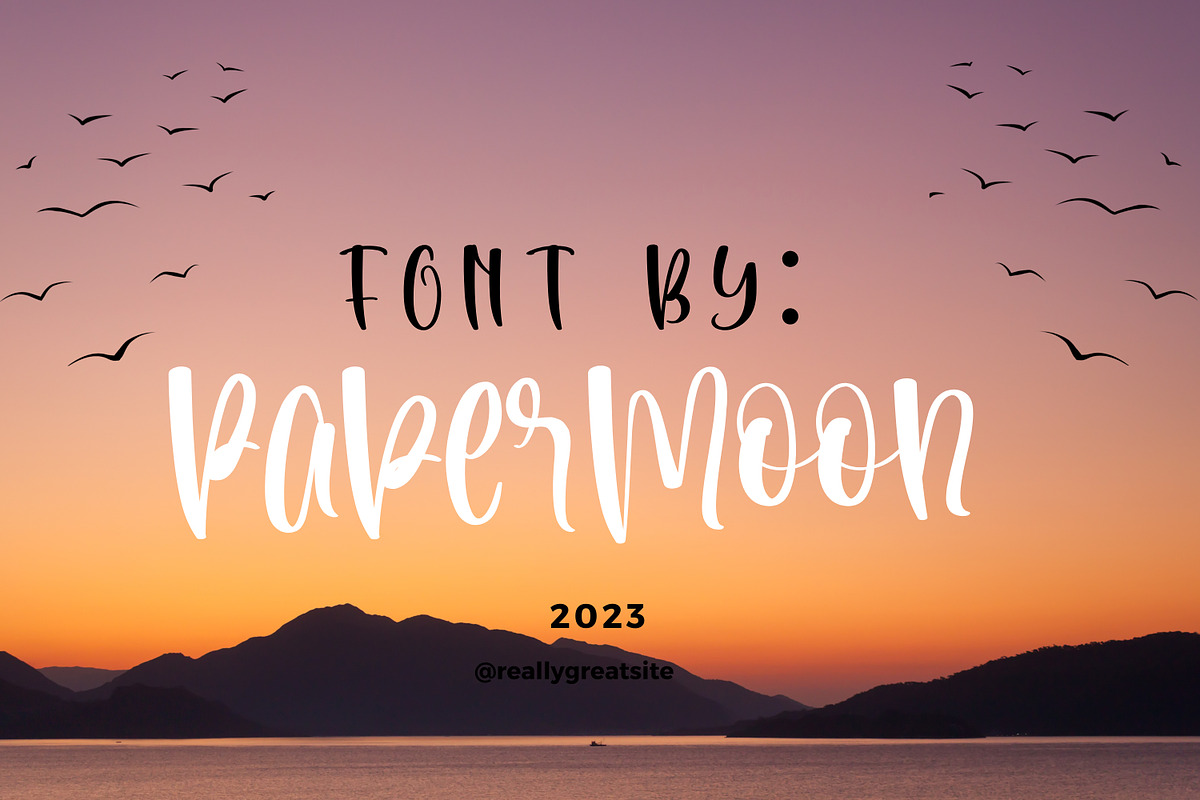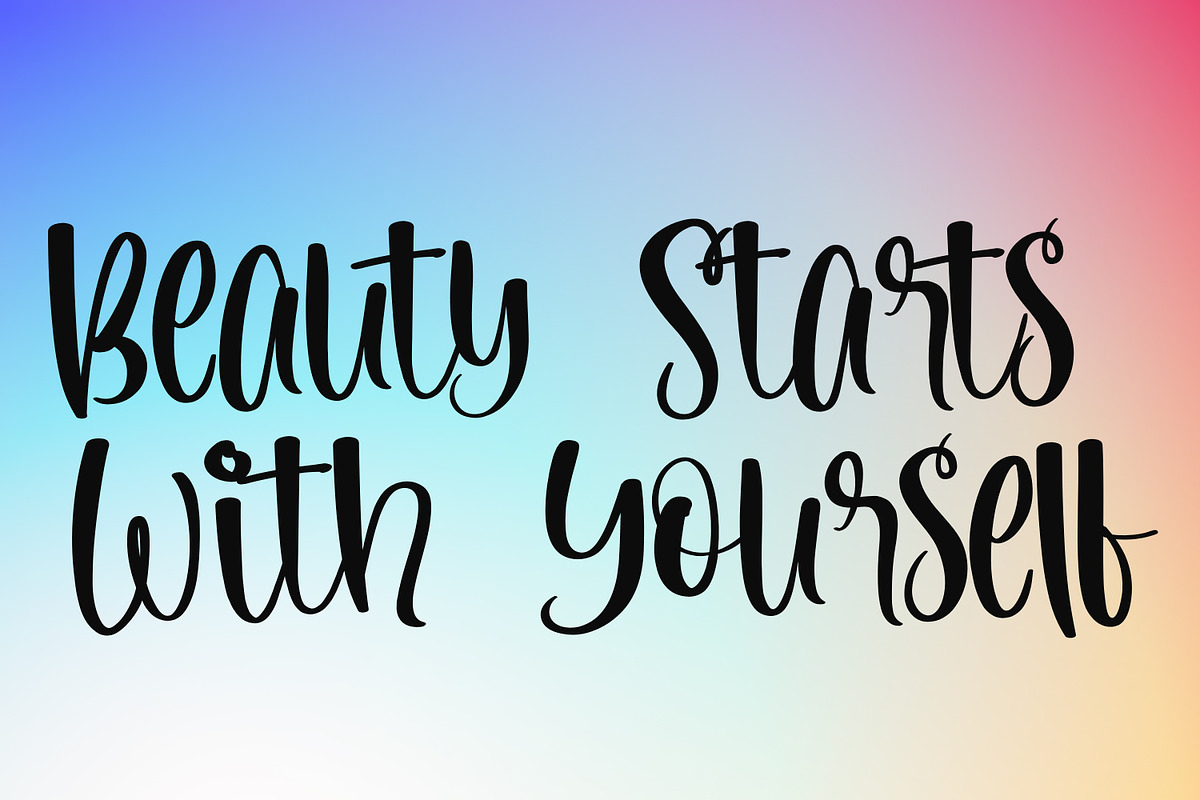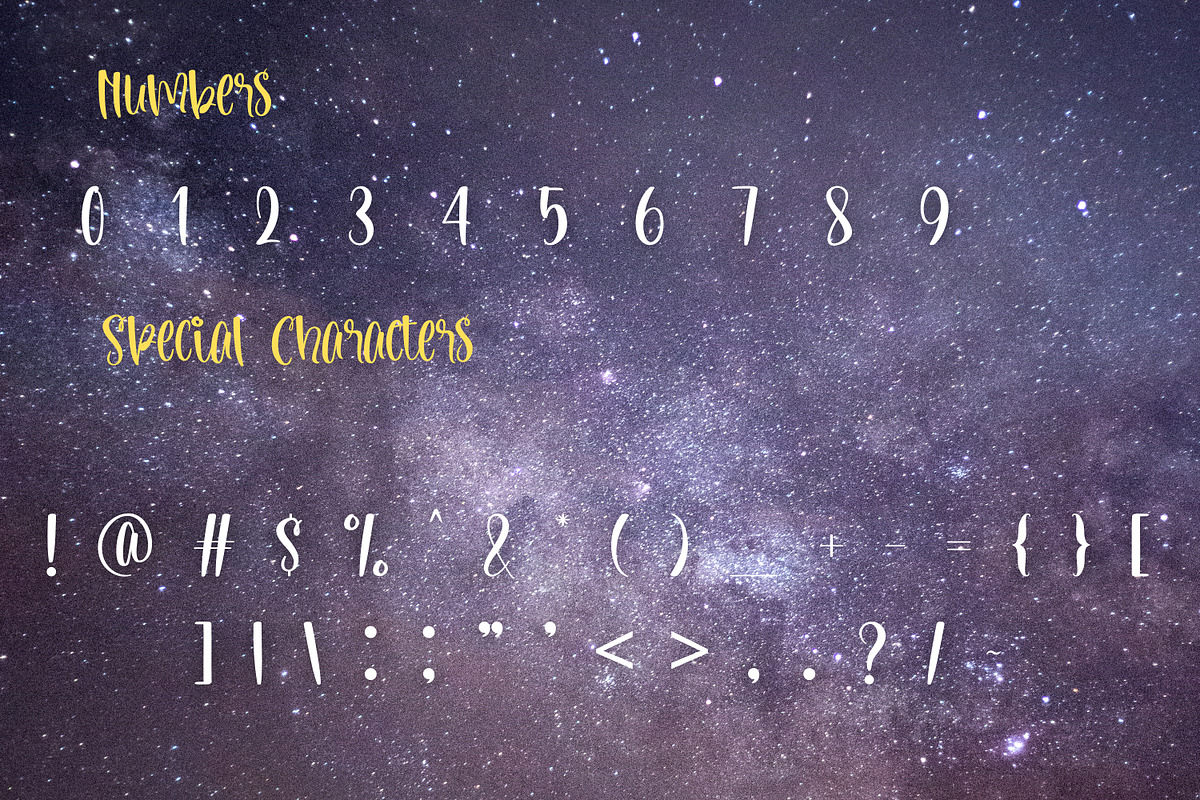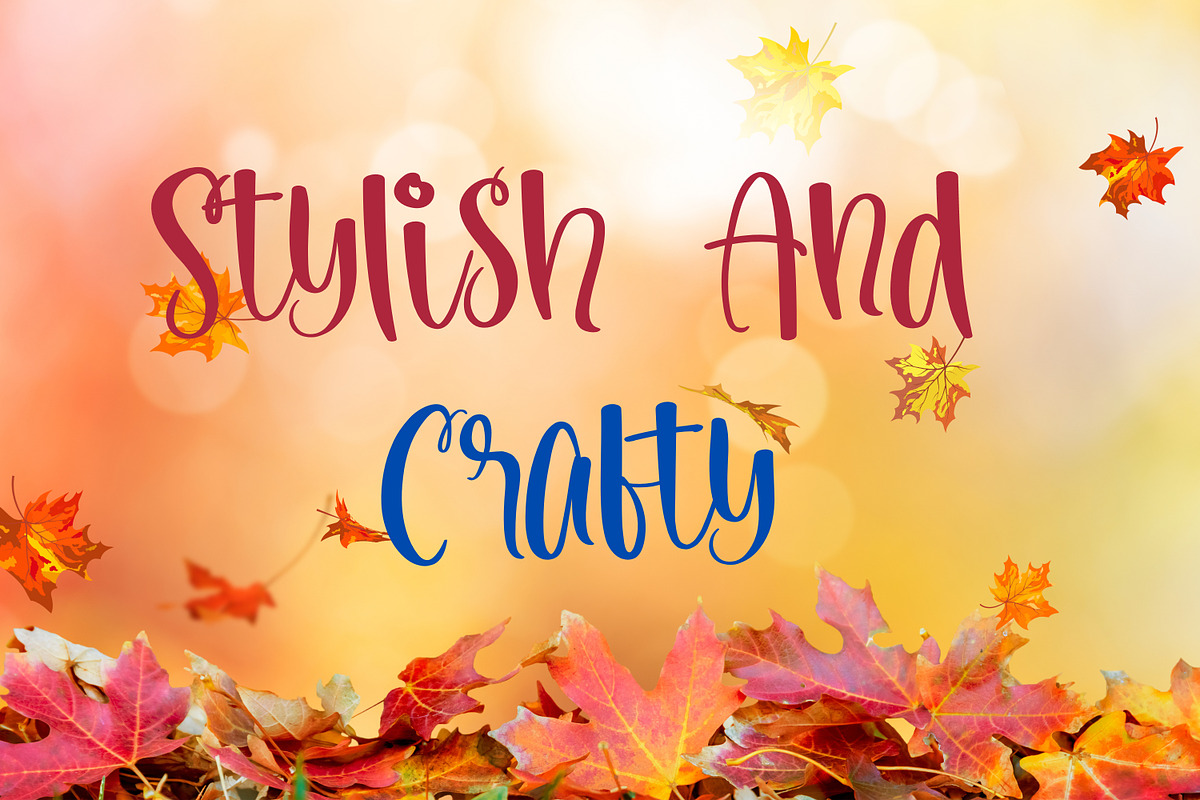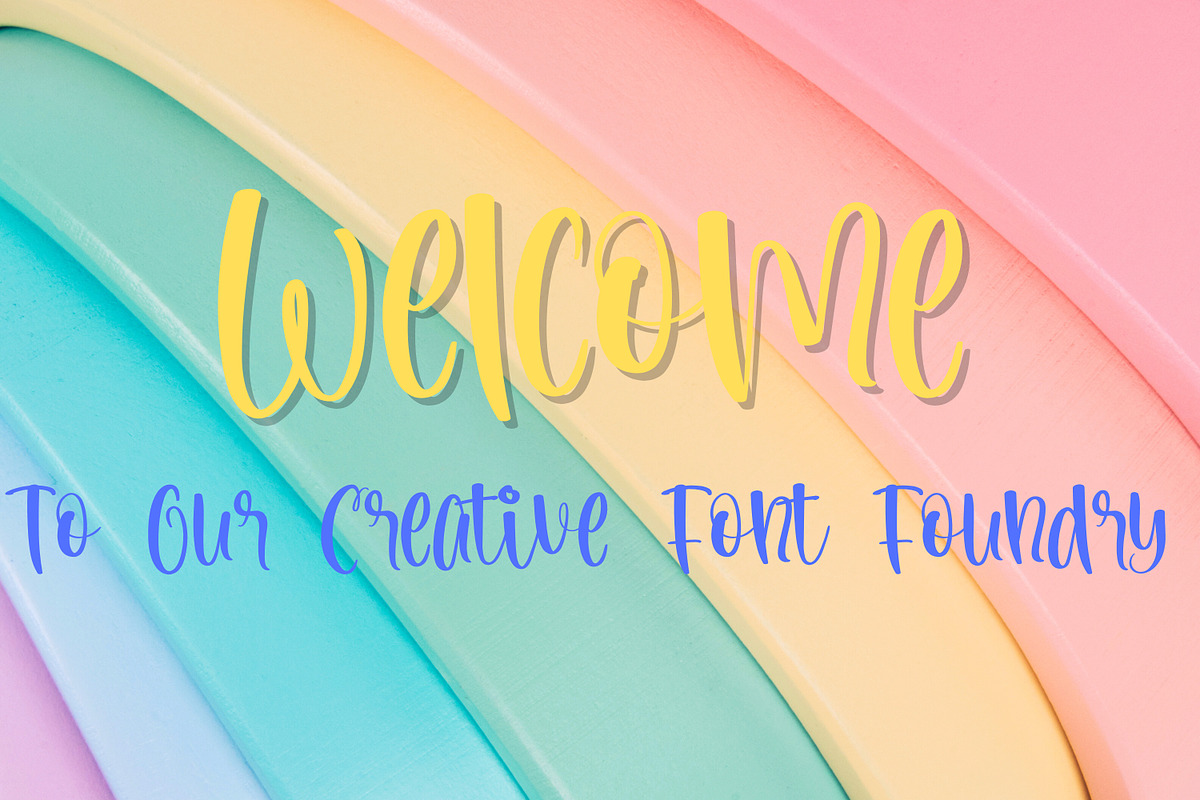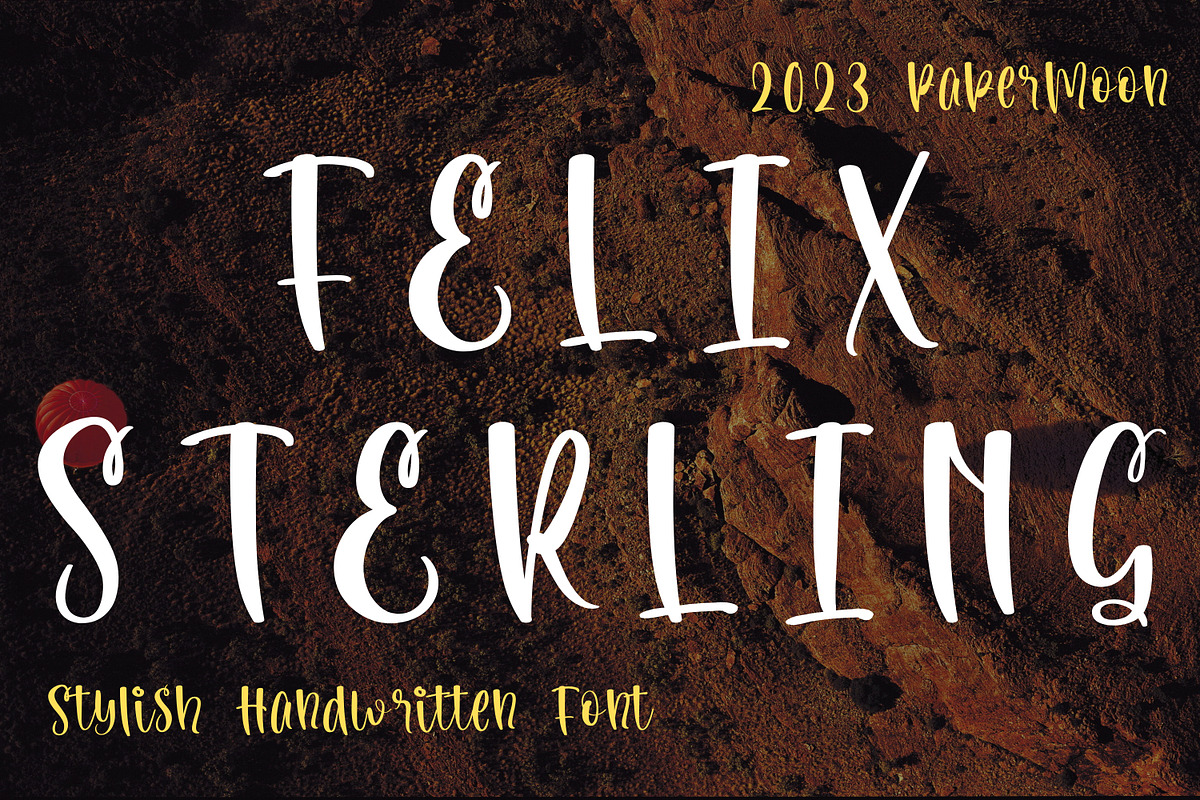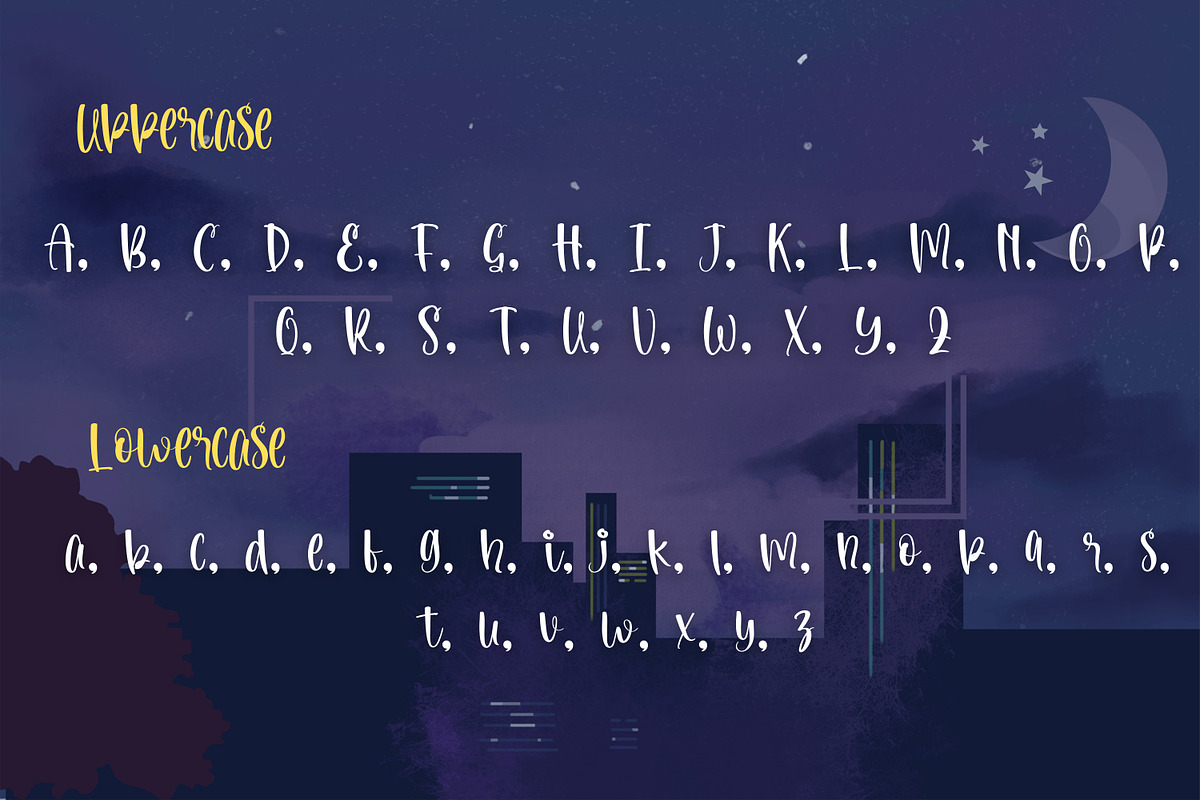
Felix Sterling: Stylish Handwritten
Introducing a stylish handwritten font with an awesome spark effect, created by Cherish Adonis. This font is suitable for various industries, including accessories, architecture, fashion, crafts, floristry, homeware, jewelry, perfumes, publishing, wedding planning, and more!
The font comes with a complete set of both uppercase and lowercase characters, numbers, an extensive assortment of punctuation marks and symbols, ligatures, and swoosh elements. The character set is exceptionally striking, meticulously designed with precise spacing and kerning. With an extended license, it's perfect for a variety of projects, such as blog headers, invitations, labels, magazines, product packaging, stationery, titles, and more.